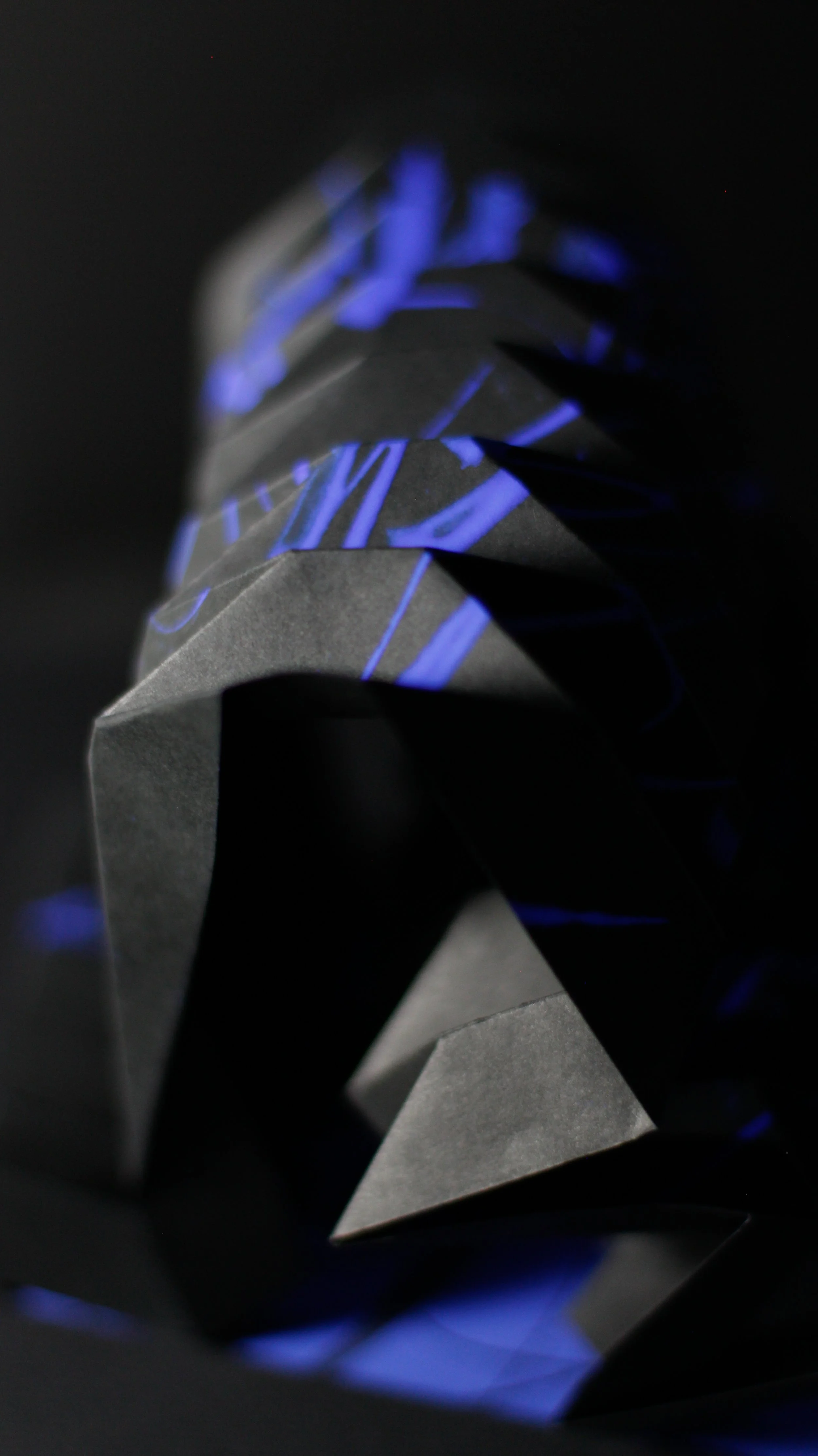
Ástor
Ástor. Tangible music.
As a native Argentinian, the music of Ástor Piazzolla (1) lives deep in my soul.
The idea for this piece started to grow after attending a workshop on paper engineering with Kelli Anderson. Initially, I wanted to create the word “Astor” in folded paper (2, 3), to emulate his iconic instrument, the bandoneon—a type of concertina popular in Argentina. After some tests, I decided that trying to make the whole word was too complex, so I developed only the letter A (4, 5).
His music is called música ciudadana, “music from the city” of Buenos Aires. Passionate, vibrant, nocturnal, sorrowful, and melancholic, his lyrics and music belong to Buenos Aires’ porteña night. Black paper and very bright blue strokes transmit the feeling of rainy nights and dark spaces. The intentionally illegible text, tangamente enamorada (6) (“tango-ish in love”), is an extract from Balada para mi muerte (“A ballad to my death”).
Because it’s a 3-dimensional piece, it should be seen from many perspectives (7). For that purpose, I created a clamshell case (8) to keep the piece inside, but also to serve as a stand to display it opened, as intended.
The black paper is Strathmore. The calligraphy was made with ruling pens and gouache.